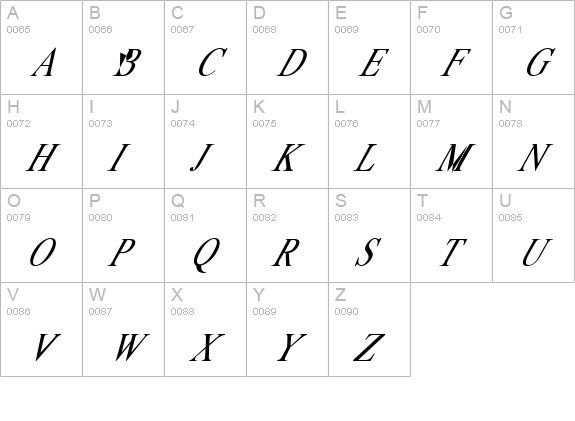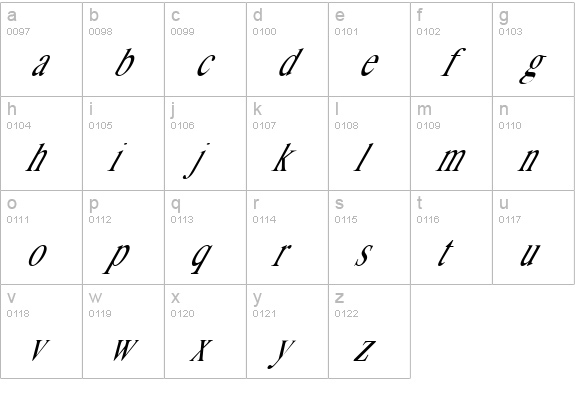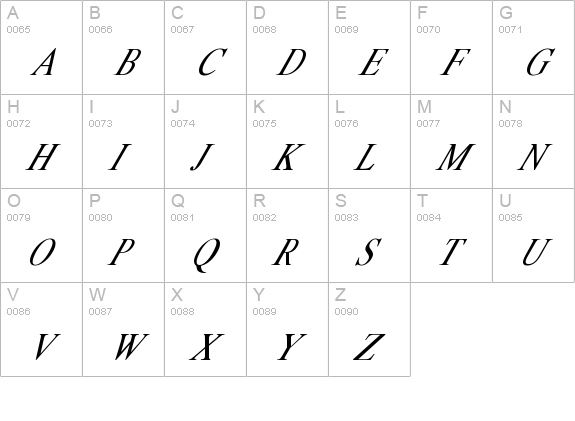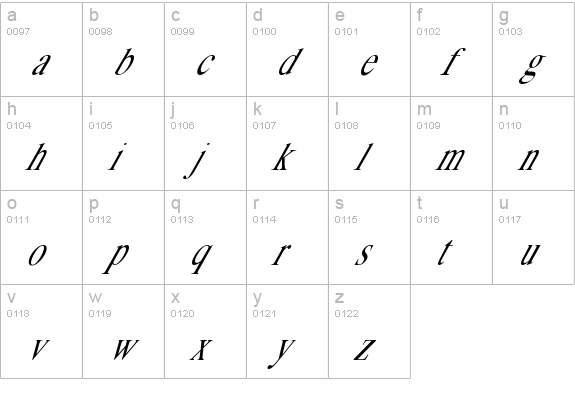
Far Out Font Details
Introducing Far Out font, a captivating and modern typeface that will take your designs to new heights. With its futuristic and edgy aesthetic, Far Out is perfect for adding a touch of sophistication to your projects. This versatile font is ideal for a wide range of design applications, from branding to editorial design. Its unique and stylish look is sure to make a statement and leave a lasting impression. Best of all, Far Out font is available for free download at FontsMarket.com. So, whether you're a seasoned designer looking to spice up your creations or a newcomer eager to experiment with different styles, Far Out font is the perfect choice for all your typographic needs. Download it today and unleash your creativity with this stunning and contemporary typeface.